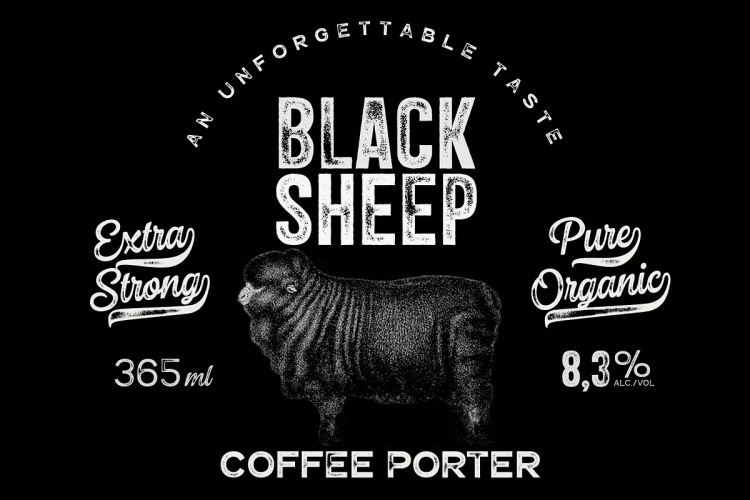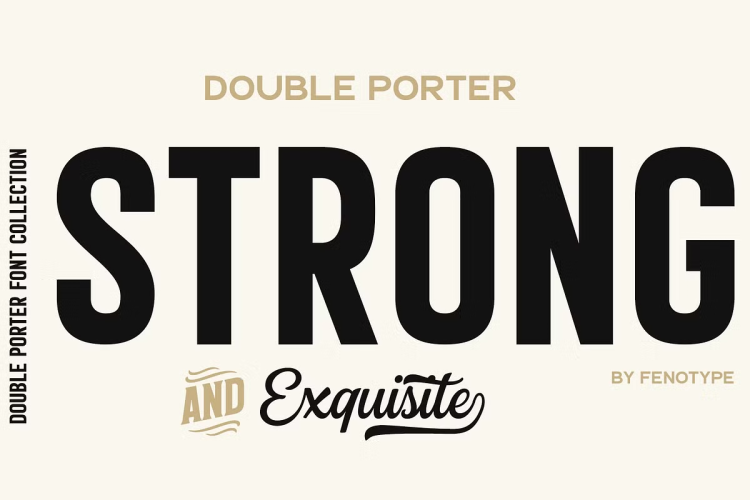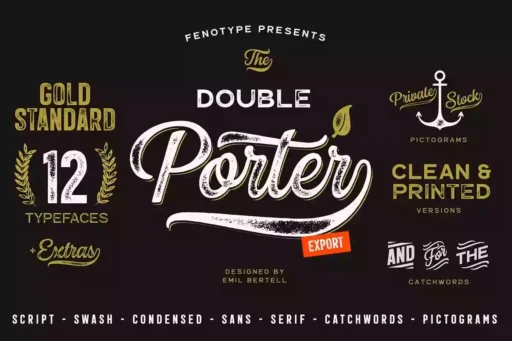
Double Porter Font
Double Porter is a beautiful set of fonts by Emil Bertell. It is a fully editable font set created to maintain consistency across your designs and give them a professional appearance. It includes the following features:
6 Fonts – each of which has a clean and textured version.
Ornaments
Catchwords
Swash Ornaments for finishing off the specific script font only
Lastly, each Double Porter font is available with a “Printed” version, for example Double Porter P x. These versions come with sturdy forms and a faded look and feel to their surface to help create a shabby chic or aged effect.
Double Porter offers a vast number of language options; West European, Central European, Baltic, Turkish, and Romanian character sets.
This collection of fonts, ornaments, and extras make Double Porter a perfect package for designers in need of a diverse, elegant, and efficient font family.
Double Porter Font is a Display Fonts font that brings a professional and versatile look to your projects. Double Porter is a beautiful set of fonts by Emil Bertell.